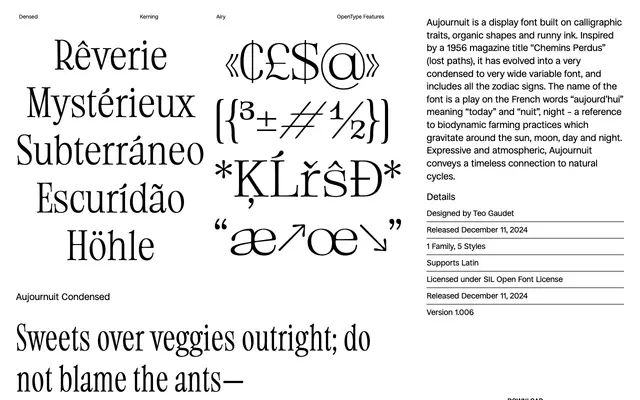
Aujournuit
Collletttivo · Teo Gaudet · 2024
A variable display typeface by Teo Gaudet drawing on calligraphic letterforms and the look of runny ink, spanning from very condensed to very wide.
Inspired by a 1956 French magazine title, Aujournuit stretches from an extremely condensed to a very wide setting via a variable width axis, with five named styles including an Airy variant. Its letterforms carry the looseness of calligraphy and wet ink, and the family includes all zodiac signs as supplementary glyphs. Released under the SIL Open Font Licence, it is free to download from Collletttivo.
A variable display typeface with calligraphic roots and organic, ink-like forms. Its expressive, atmospheric character and extreme width range place it firmly in the display category rather than text or script.